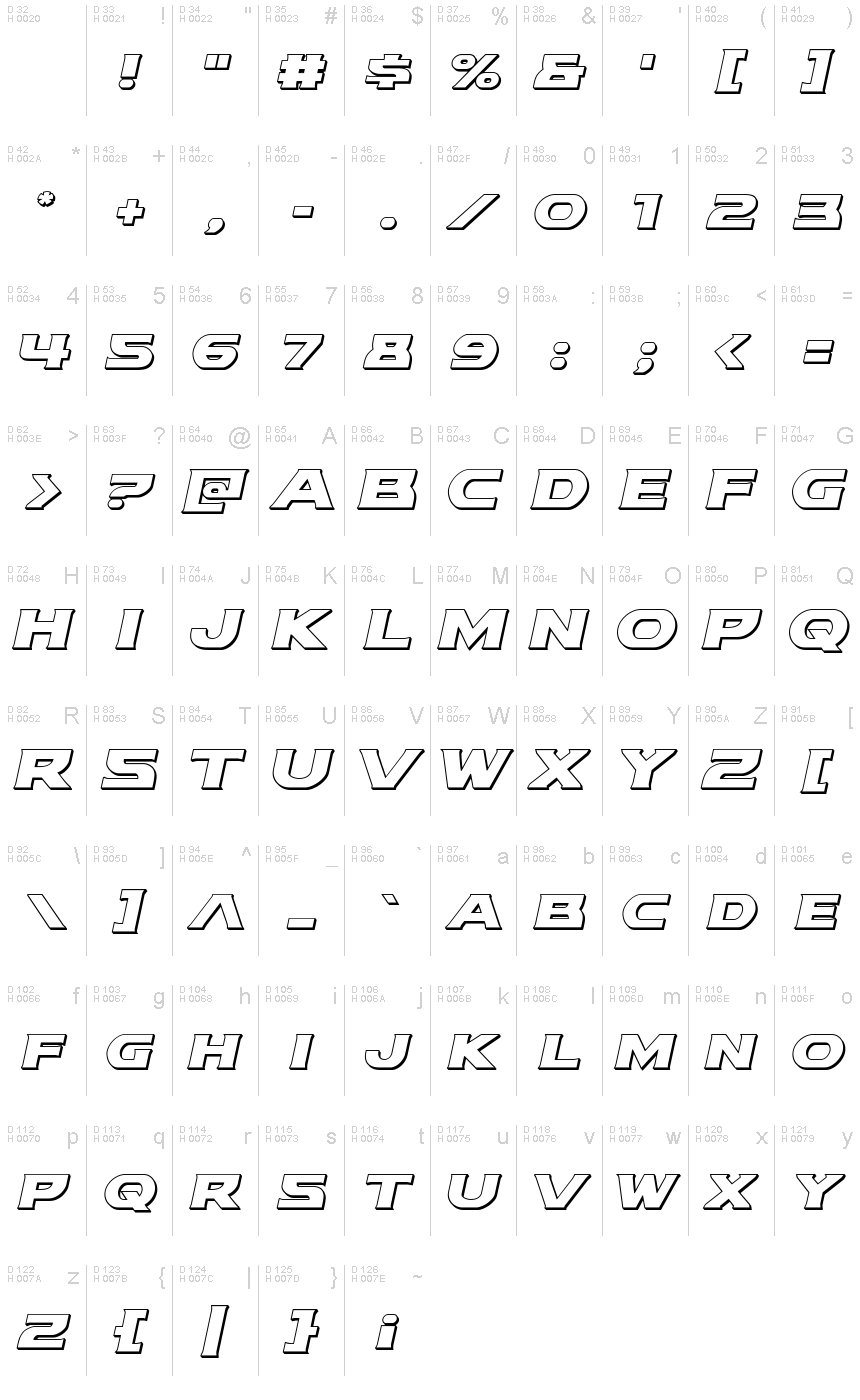
Modi Thorson 3D Italic from Iconian Fonts is a free 3D display font with broad, forward-slanting capitals, a crisp outlined face, squared curves and clipped corners, plus a low extrusion along the base and right side. Its shallow shadow gives the letters a molded, badge-like edge.
Audiences drawn to racing, team sports and arcade games are a natural match for this fast-moving style. It suits motorsport posters and esports branding, where the generous width and engineered contours make names look substantial and assertive. Merchandise, event signage and game graphics share the same need for lettering that can double as a logo-like emblem.
Modi Thorson 3D Italic